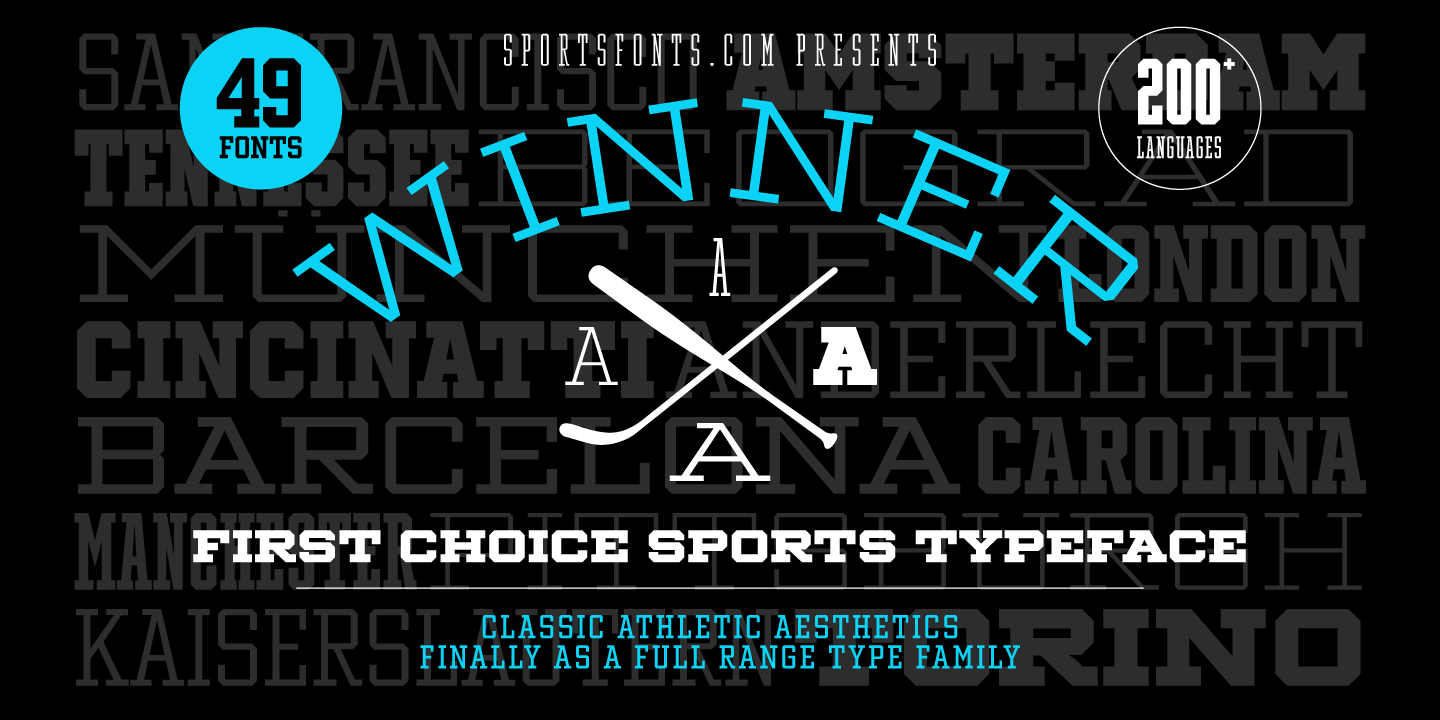
Winner Font excels in competitive design applications including sports team branding, championship event posters, fitness center signage, athletic apparel graphics, victory celebration materials, motivational campaign designs, gaming tournament promotions, achievement award certificates, competitive business presentations, and success-driven marketing materials. This triumphant typeface brings winning energy to performance-focused projects.
What makes Winner Font truly exciting is its perfect embodiment of championship spirit with bold, confident letterforms that radiate strength and determination. The font features dynamic character shapes with powerful presence and athletic energy that inspire motivation and convey unstoppable drive. Its victorious personality and competitive edge make it ideal for brands targeting high-achievers, athletes, and success-oriented audiences who value excellence, perseverance, and the relentless pursuit of winning results.
The Winner Font family typically includes multiple weights such as Regular, Bold, and Black with potential outline and shadow variations that enhance its championship character. These powerful options provide designers with complete competitive styling while maintaining the font's distinctive winning presence and motivational impact across various athletic and achievement-focused applications.
Whether you're developing sports branding, creating motivational campaigns, or designing success-focused materials, Winner Font Free Download provides the championship authority and victorious energy that competitive projects require. Its exceptional power and winning spirit make it invaluable for designers working with sports organizations, fitness brands, and achievement-oriented companies requiring typography that celebrates victory, inspires excellence, and captures the unstoppable determination that drives champions to reach their highest potential and claim ultimate success.